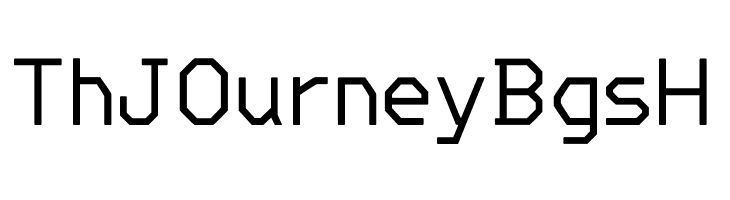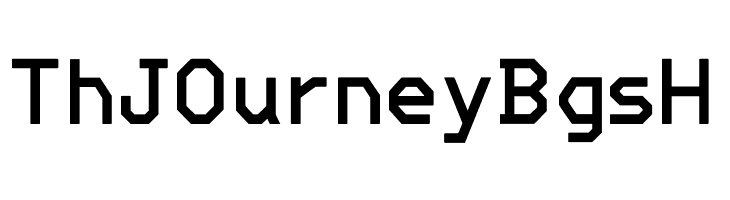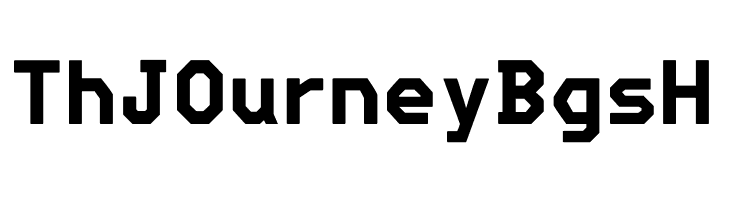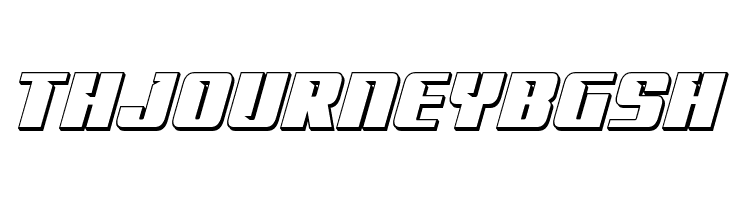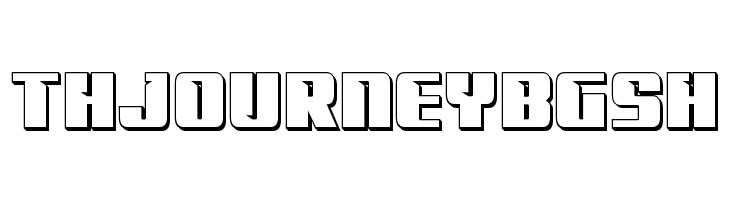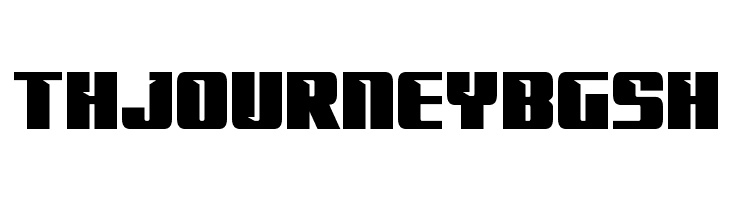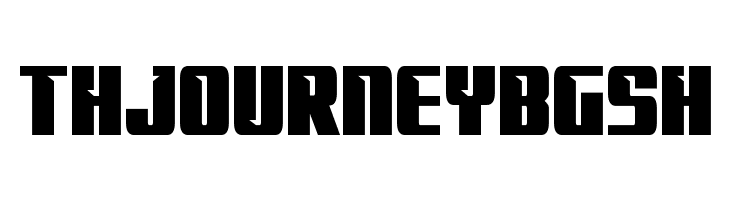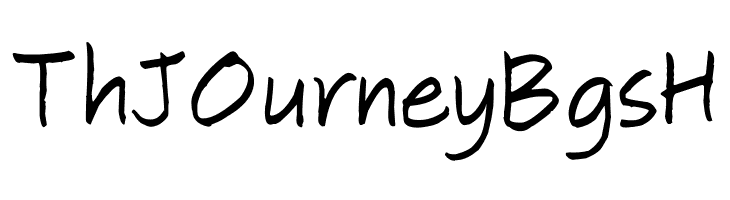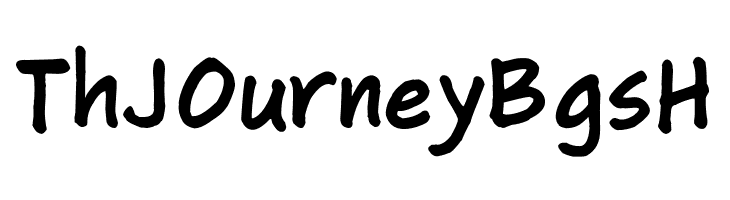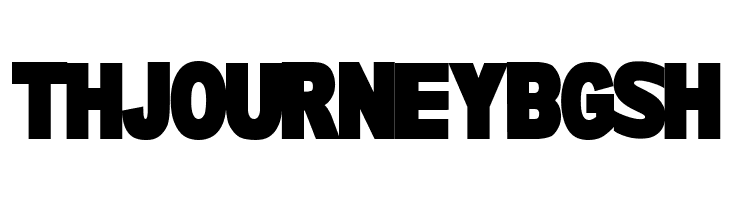
• *TINTIN*
A bold, uppercase font with a strong, modern presence.
• ' Mono Bold
A bold, geometric monospaced font with uniform character spacing.
• ' Mono Light
A modern, monospaced font with consistent stroke weight and geometric design.
• ' Mono Regular
A monospaced font with a geometric and technical style.
• ' RonySiswadi Architect 1
A bold, handwritten font with a playful and informal style.
• ' RonySiswadi Architect 2
A casual, handwritten font with an architectural flair.
• '89 Speed Affair
A bold, geometric font with a strong, modern appearance.
• '89 Speed Affair 3D
A bold, 3D block font with a modern, industrial style.
• '89 Speed Affair 3D Italic
A bold, 3D italic font with a dynamic, speedy appearance.
• '89 Speed Affair Condensed
A bold, condensed geometric font with strong, blocky characters.